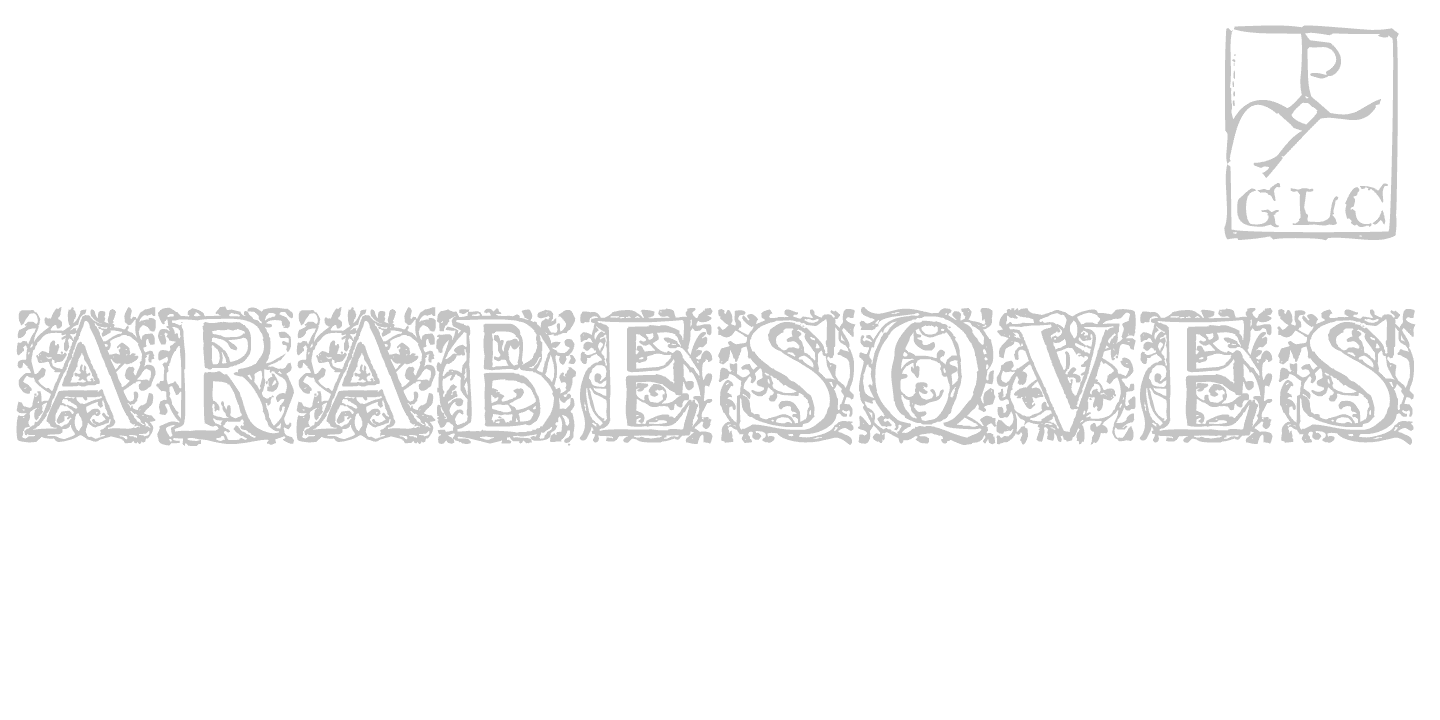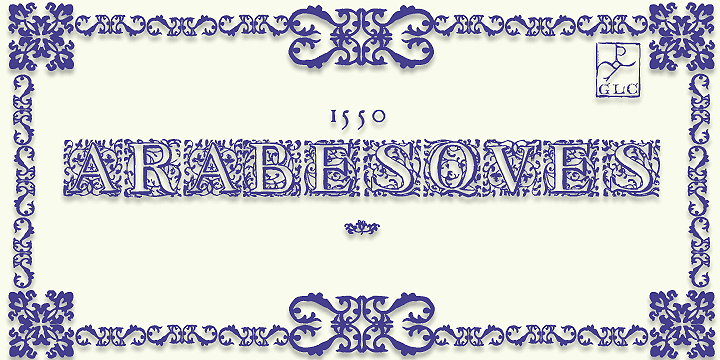
1550 Arabesques (1 font)
From Gilles Le Corre
It is used to embellish texts, such as posters, greetings, invitations, gastronomic menus and much more...
This font easily supports enlargement to 48, 60, 72 points and more, as it is made for those sizes!